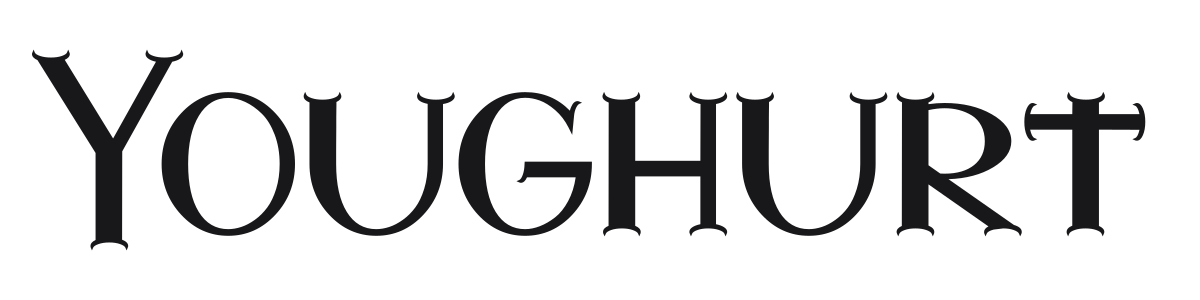
Youghurt
Youghurt is a wide all-caps display serif with high stroke contrast and elaborate cross-shaped terminal details drawn from Art Nouveau and Edwardian lettering traditions. The ornamental spurs and flared strokes give it a distinctly artisanal, handcrafted character that stands out at large sizes. It suits packaging, logotypes, and headline work where vintage charm and bold presence are needed.